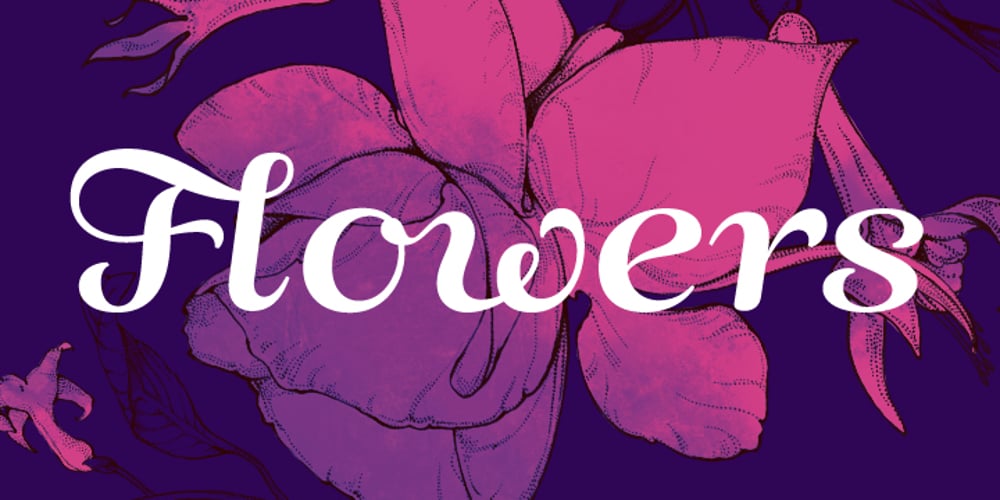
ALS Fuchsia Font Family was designed by Ksenia Yerulevich and published by Art. Lebedev Studio. ALS Fuchsia contains 1 styles and family package options. Fuchsia is a soft, romantic, and slightly eclectic script. The characters feature wide proportions, high contrast, and backward bends at joints—all ensuring the typeface truly shine in large sizes. Complex capitals look very nice next to lowercase letters.